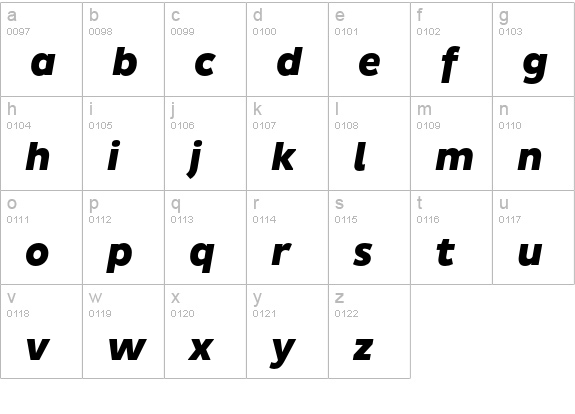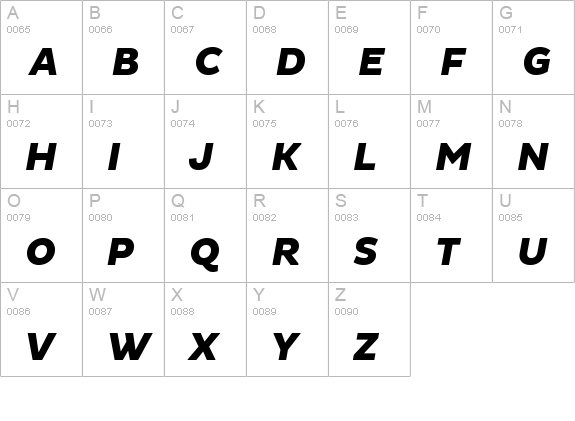
Pluto Sans Heavy Italic Font Details
Pluto Sans Heavy Italic is a heavy, high-impact, italic variant in the Pluto typeface family \xE2\x80\x94 well suited to high-impact headlines, posters, and display advertising.
Pluto Sans Heavy Italic font is a bold and dynamic typeface that exudes a sense of modernity and sophistication. Its striking slanted design adds a touch of flair to any project, making it perfect for headlines, branding, and other creative endeavors. The strong, heavy weight of this font commands attention and leaves a lasting impression on the reader. What sets Pluto Sans Heavy Italic font apart is that it is available for free download at FontsMarket.com, making it accessible to designers, creatives, and enthusiasts alike. Whether you're looking to make a statement or add a touch of elegance to your work, Pluto Sans Heavy Italic font is a versatile choice that is sure to elevate your designs. Download it today and unleash your creativity with this stylish and impactful typeface.